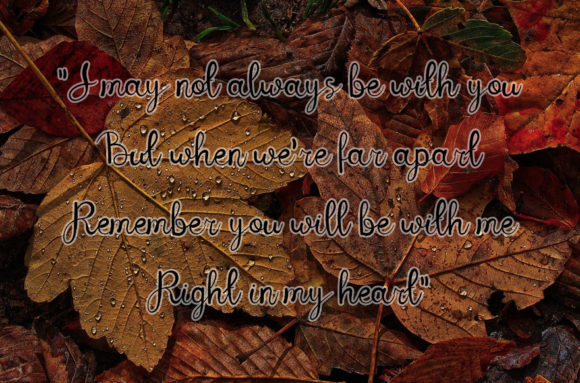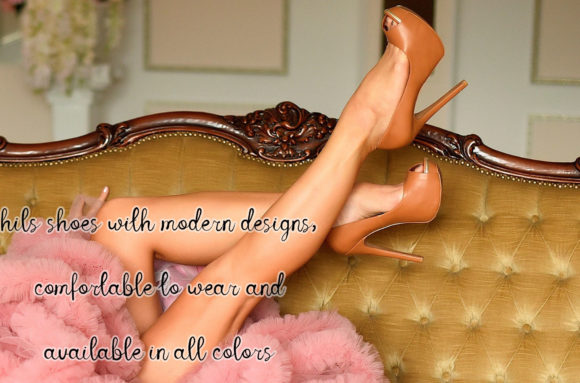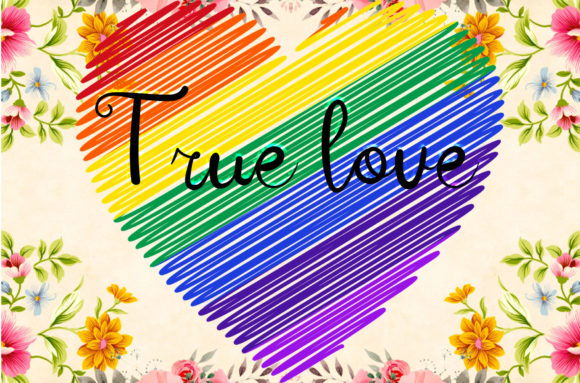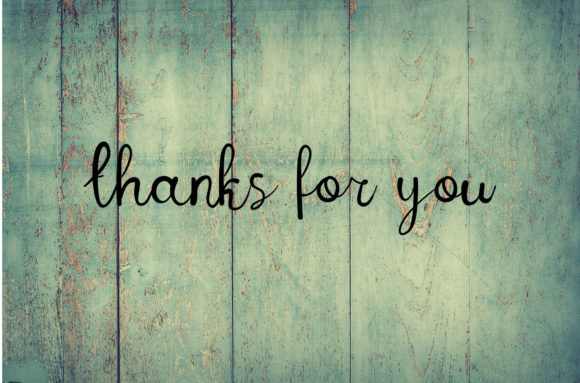
Introducing Hanymoon Font: The Ultimate Romantic Calligraphy Typeface
Are you a designer or crafter looking for a font that exudes romance and sophistication? Look no further than Hanymoon Font, a stunning calligraphy typeface that is sure to add a touch of luxury to any design project. With its unique and elegant characters that dance along the baseline, Hanymoon Font is the perfect choice for those who want to create beautiful and eye-catching designs.
What Makes Hanymoon Font So Special?
Hanymoon Font is a romantic and sweet calligraphy typeface that is designed to make your designs stand out. Its characters are carefully crafted to dance along the baseline, creating a sense of movement and fluidity that is sure to capture the attention of your audience. Whether you’re creating a wedding invitation, a branding campaign, or a social media graphic, Hanymoon Font is the perfect choice for adding a touch of elegance and sophistication.
Key Features of Hanymoon Font
- Romantic and Sweet: Hanymoon Font is a calligraphy typeface that is designed to evoke feelings of romance and sweetness. Its elegant characters are perfect for creating designs that are both beautiful and eye-catching.
- Dancing Characters: The characters in Hanymoon Font are designed to dance along the baseline, creating a sense of movement and fluidity that is sure to capture the attention of your audience.
- Luxury Spark: Hanymoon Font is designed to add a touch of luxury to any design project. Its elegant and sophisticated characters are perfect for creating high-end designs that are sure to impress.
- Versatile: Hanymoon Font is a versatile typeface that can be used for a wide range of design projects, from wedding invitations to branding campaigns and social media graphics.
How to Use Hanymoon Font in Your Design Projects
Hanymoon Font is easy to use and can be incorporated into a wide range of design projects. Here are a few ideas to get you started:
- Wedding Invitations: Hanymoon Font is the perfect choice for wedding invitations, as it exudes romance and sophistication. Use it to create beautiful and elegant invitations that will set the tone for the big day.
- Branding Campaigns: Hanymoon Font can be used to add a touch of luxury to branding campaigns. Use it to create elegant and sophisticated logos, packaging, and marketing materials.
- Social Media Graphics: Hanymoon Font can be used to create eye-catching social media graphics that are sure to capture the attention of your audience. Use it to create beautiful and elegant graphics that will help you stand out on social media.
Tips for Getting the Most Out of Hanymoon Font
Here are a few tips for getting the most out of Hanymoon Font:
- Use it Sparingly: Hanymoon Font is a elegant and sophisticated typeface, so use it sparingly to avoid overwhelming your design. Use it for headings, titles, and other important text elements.
- Pair it with Other Fonts: Hanymoon Font can be paired with other fonts to create a unique and interesting design. Try pairing it with a clean and simple sans-serif font for a beautiful contrast.
- Experiment with Colors: Hanymoon Font looks beautiful in a wide range of colors, so don’t be afraid to experiment. Try using it in different colors to create a unique and eye-catching design.
Hanymoon Font is a romantic and sweet calligraphy typeface that is sure to add a touch of luxury to any design project. With its unique and elegant characters that dance along the baseline, Hanymoon Font is the perfect choice for designers and crafters who want to create beautiful and eye-catching designs. Whether you’re creating a wedding invitation, a branding campaign, or a social media graphic, Hanymoon Font is the perfect choice for adding a touch of elegance and sophistication.